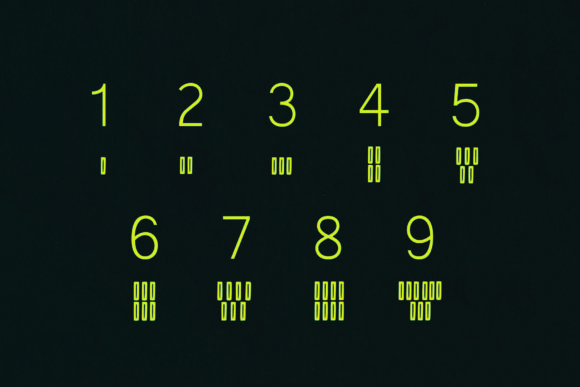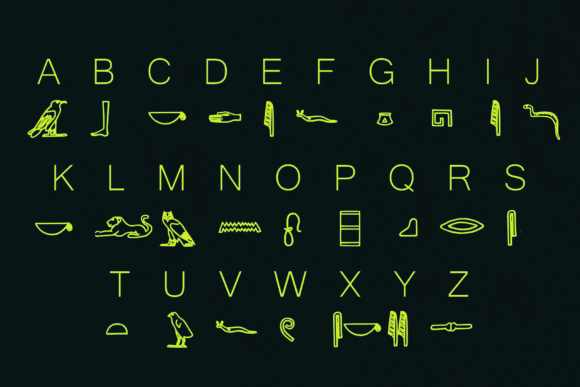
Introduction to Egyptian Hieroglyph Font
As I sat in my studio, surrounded by sketchpads and half-finished projects, I stumbled upon a font that transported me to the banks of the Nile River. The intricate hieroglyphics danced across the screen, beckoning me to explore the secrets of ancient Egypt. It was then that I discovered the Egyptian Hieroglyph Font, a stunning and historical dingbats font that has been a game-changer for my design projects.
For designers, the Egyptian Hieroglyph Font is a valuable resource that offers a unique twist on traditional fonts. With its high-quality design and transparent background, it’s the perfect addition to any creative project. Whether you’re working on a logo, a brochure, or a website, this font is sure to bring an air of sophistication and mystique to your work. And the best part? It’s available for free download, making it an essential design resource for anyone looking to elevate their creative projects.
Key Features of Egyptian Hieroglyph Font
- High-quality design: The Egyptian Hieroglyph Font offers intricate and detailed hieroglyphic characters, perfect for adding an authentic touch to your creative project.
- Transparent background: This font allows you to easily place the hieroglyphs over any background, giving you complete control over the design of your project.
- Vector graphics: The font is designed using vector graphics, allowing for scalable and crisp rendering at any resolution, from small icons to large-scale designs.
- Perfect for creative projects: The Egyptian Hieroglyph Font is ideal for designers working on projects related to ancient Egyptian culture, history, or mythology, as well as those seeking to add an exotic touch to their designs.
- High-resolution images: The font includes high-resolution images of hieroglyphic characters, ensuring that your designs remain clear and detailed, even at large sizes.
Honest Review: Egyptian Hieroglyph Font
I recently had the opportunity to work with the Egyptian Hieroglyph Font, and I must say, it’s been an interesting experience. As a designer, I’m always on the lookout for unique and high-quality design resources to elevate my creative projects.
One of the things that works well with this font is its versatility. It’s perfect for designers who want to add an ancient touch to their designs. The high-quality design and transparent background make it easy to work with, even for those who are not experts in font manipulation.
The free download option is also a major plus, making it accessible to designers of all levels. However, I did notice a few limitations. For instance, the font is not as extensive as I would have liked, with only a limited selection of hieroglyphs available.
- What works well: ✨ High-quality design, transparent background, and versatility.
- Limitations: ⚠️ Limited selection of hieroglyphs, may not be suitable for large-scale projects.
Overall, I would say that the Egyptian Hieroglyph Font is a great resource for designers who want to add a touch of ancient Egypt to their creative projects. While it has its limitations, it’s a valuable tool that can help bring your designs to life.